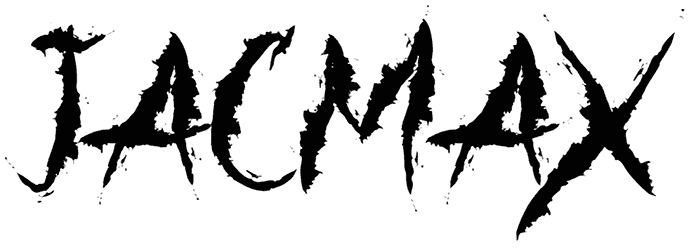
Jacmax Font
Jacmax is a flame font without lowercase letters that will ignite a sense of fear in the viewer. This warrior font has narrow letters that increase its sense of ambiguity and mystery, and it works well in projects that require a sense of dread.
It’s recommended to use it in the logo of a company that produces violent computer games or crime movies, cause it can arouse curiosity even from a distance and draw any viewer towards it.